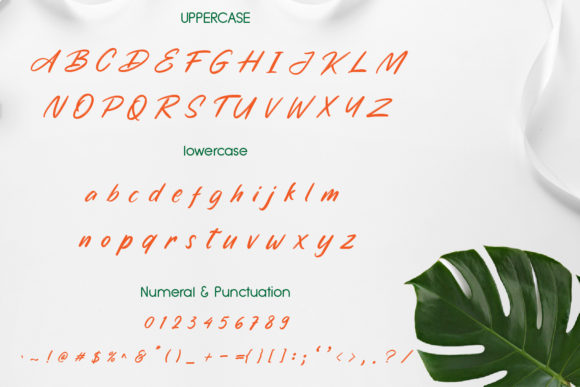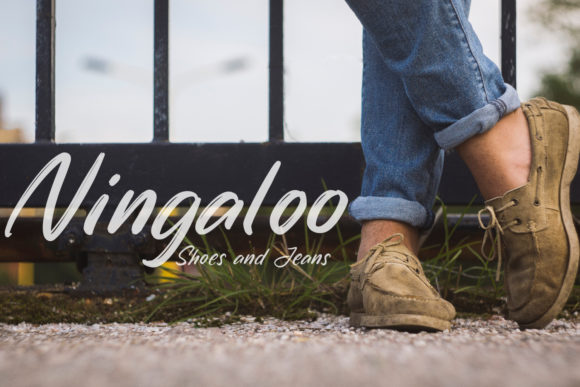
The Perfect Brushstroke: Discovering the Timeless Charm of Cendiland Font
Have you ever been struck by a creative spark, where the perfect idea suddenly hits you like a ray of sunshine on a lazy morning? It’s that moment when your imagination runs wild, and you envision a design that’s not just beautiful, but also tells a story. For designers, this moment is a treasure, and the right font can make all the difference.
Enter Cendiland Font, a lovely and timeless handwritten font that’s perfect for bringing your designs to life. With its unique and beautiful touch, every letter is a work of art that will elevate your logos, branding, and quotes to new heights. Whether you’re a seasoned designer or just starting out, Cendiland Font is a valuable addition to your toolkit, offering endless possibilities for creative expression.
Cendiland Font Key Features
- Unique Characteristic: The font features a distinctive, hand-drawn aesthetic with subtle texture and imperfections, giving it a unique and personalized feel
Cendiland Font Review
I recently had the chance to work with the Cendiland Font, and I’m excited to share my honest review with you. Overall, I found it to be a solid addition to any designer’s toolkit. Here’s what I liked and didn’t like:
✨ The Cendiland Font has a unique and modern design aesthetic that sets it apart from more traditional font styles. It’s perfect for designers looking to add a touch of sophistication and elegance to their projects.
✨ The font is highly customizable, with a wide range of weights and styles to choose from. This makes it easy to find the perfect fit for your design needs.
✨ The Cendiland Font is also incredibly versatile, working well in both digital and print applications.
⚠️ One of the main limitations of the Cendiland Font is its limited character set. While it includes a wide range of Latin characters, it’s not ideal for designers working with languages that require more complex character sets.
⚠️ Additionally, the font can be quite dense, which can make it difficult to read at smaller font sizes.
⚠️ Finally, the Cendiland Font is not suitable for use in all design applications. It’s best used for headings and titles, rather than body text.
Overall, I’m impressed with the Cendiland Font. While it may have some limitations, its unique design aesthetic and high level of customizability make it a valuable addition to any designer’s toolkit.
- Perfect for modern and sophisticated designs
- Works well in both digital and print applications
Cendiland Font is ideal for:
- Typography-based artwork and graphics.
Getting the Most Out of Cendiland Font
For optimal results, use Cendiland Font in combination with high-quality graphics and images. Experiment with different font sizes, colors, and styles to create unique and eye-catching designs.
Alternatives to Cendiland Font for Designers
Great Vibes Font is a modern script font that features a unique blend of elegance and playfulness. It is ideal for use in titles, headings, and invitations where a touch of sophistication is required.
Compared to Cendiland Font, Great Vibes Font has a more refined and polished look, making it suitable for high-end designs. While Cendiland Font has a more rustic feel, Great Vibes Font is more versatile and can be used in a wide range of design projects.
Pacifico Font is a beautiful script font that exudes a sense of calmness and serenity. It is perfect for use in designs that require a touch of elegance and sophistication, such as wedding invitations, greeting cards, and magazine titles.